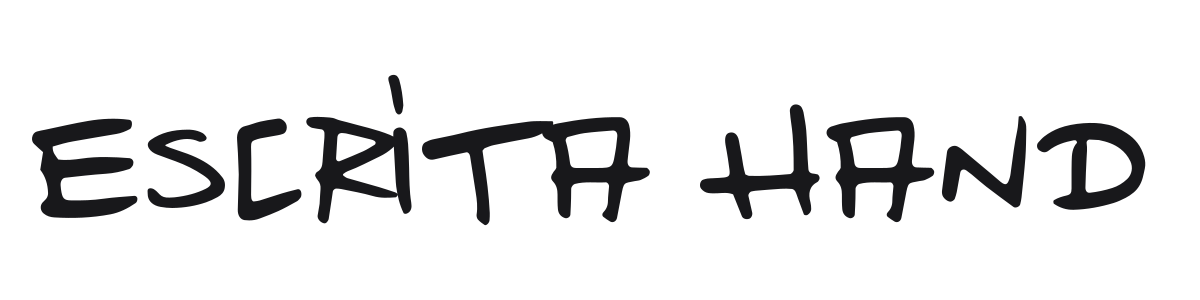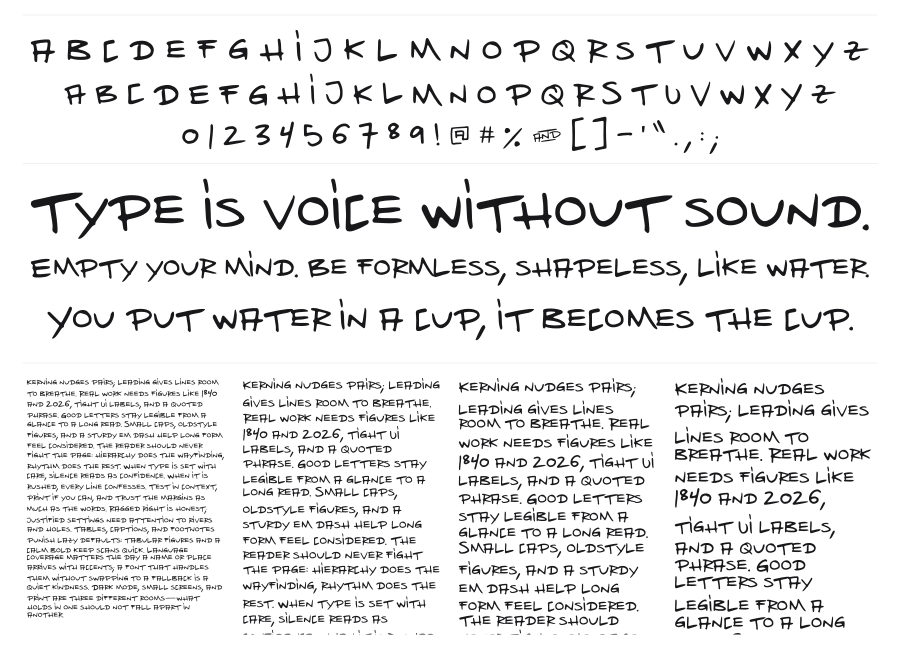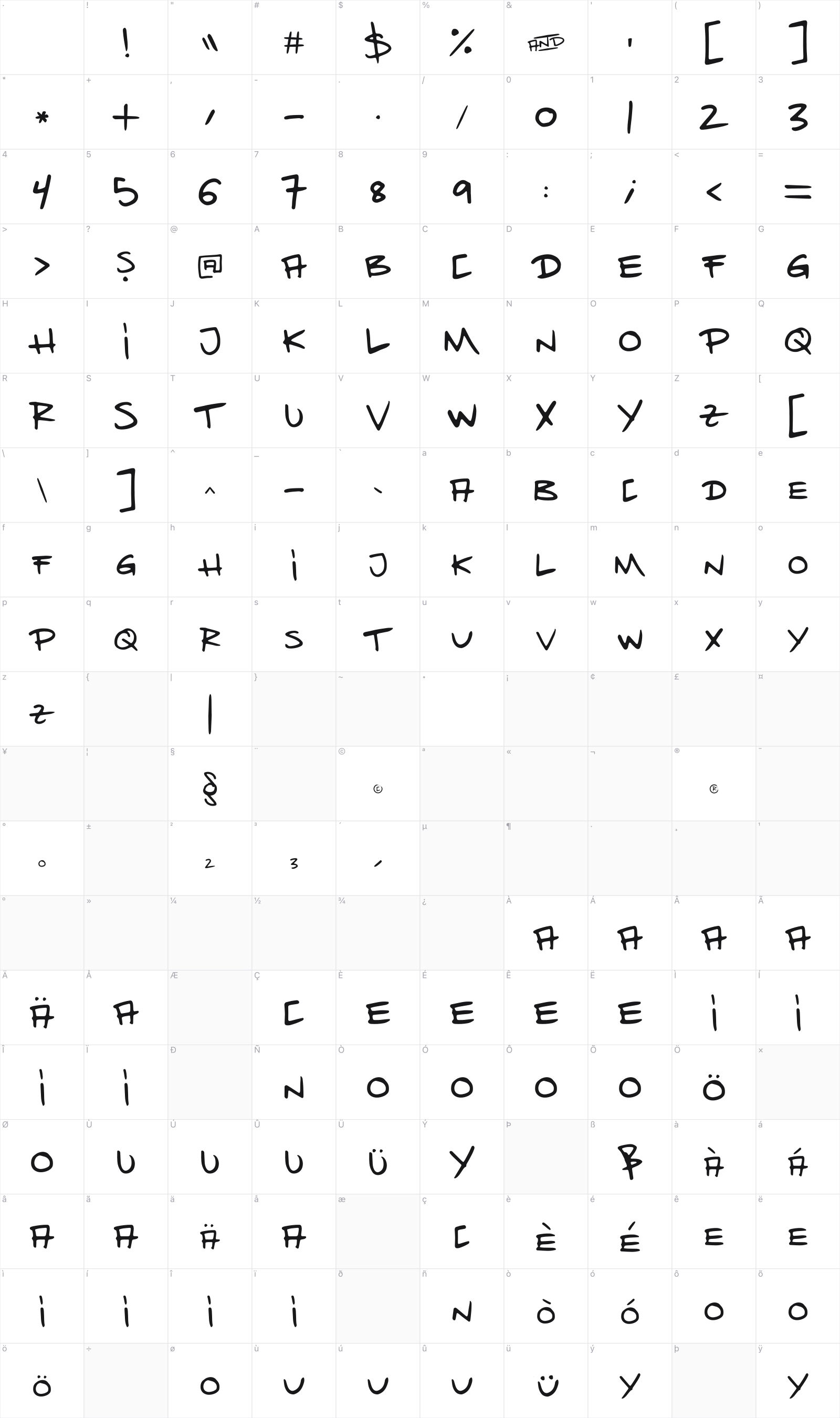
Escrita Hand
Escrita HandLetter is a bold, all-caps handwritten font that looks like it was dashed off with a chunky marker. The irregular letterforms, uneven heights, and rough stroke endings give it an authentic hand-made energy that's hard to fake. Strong for posters, labels, and any project that needs to feel un-designed.